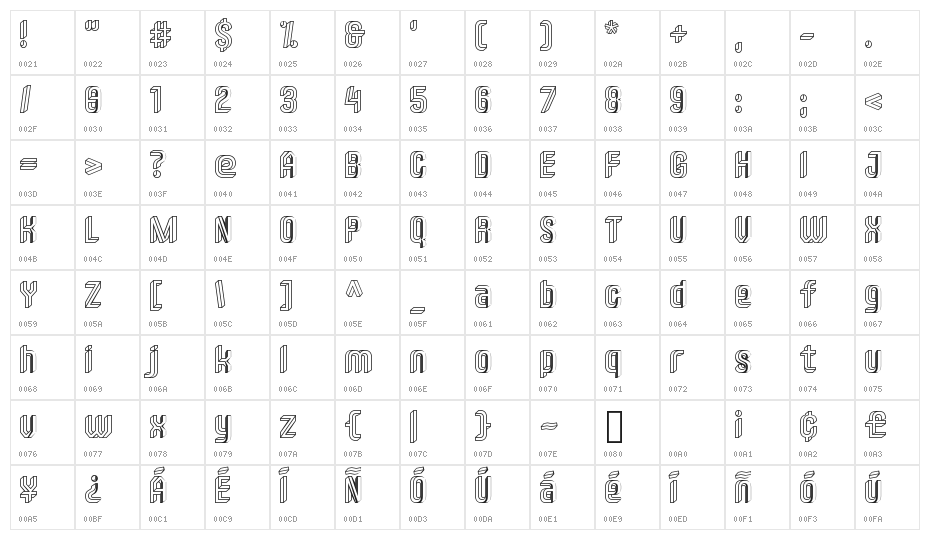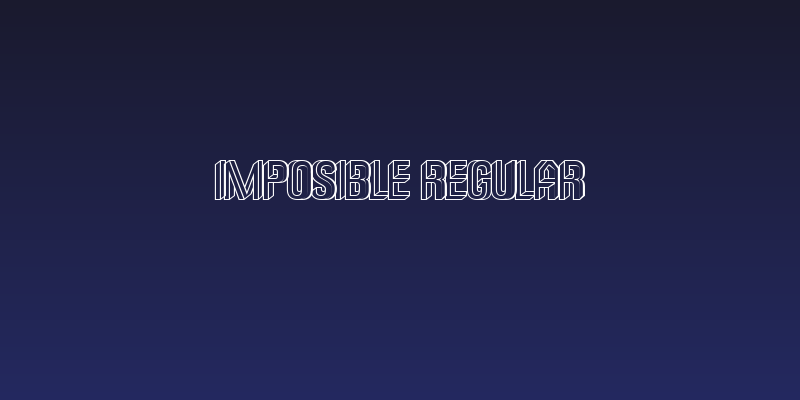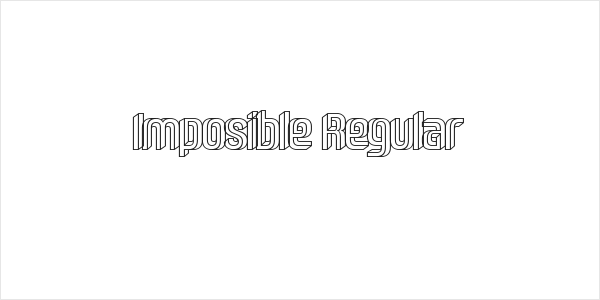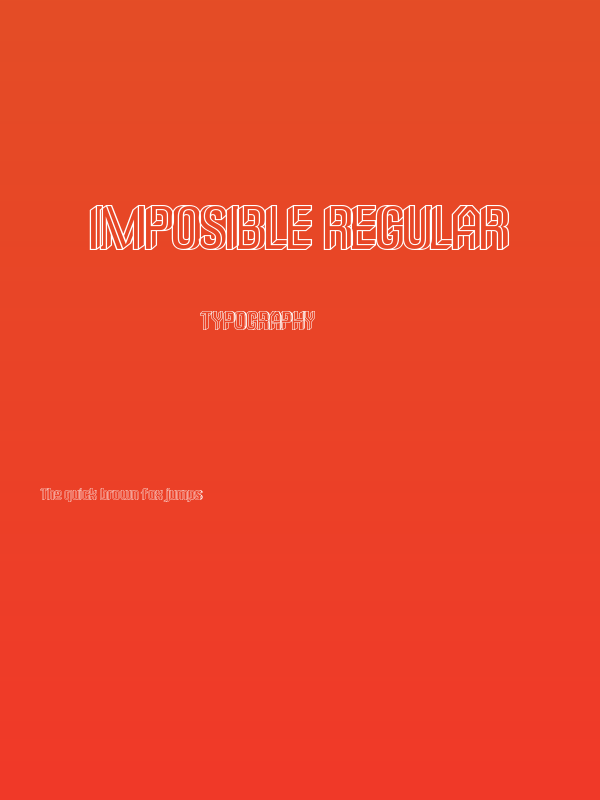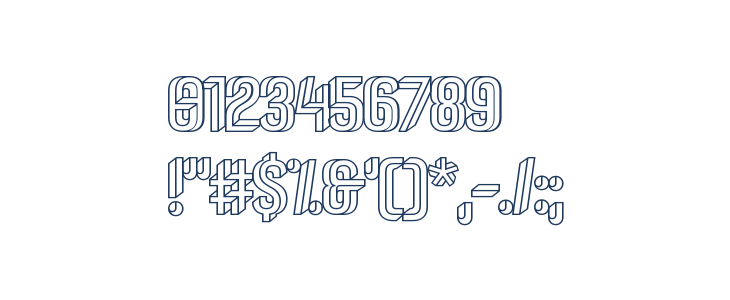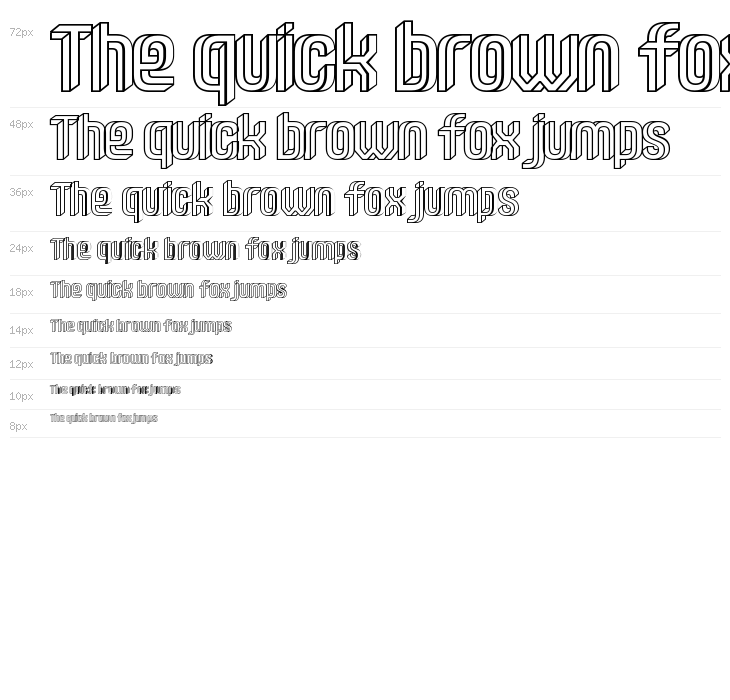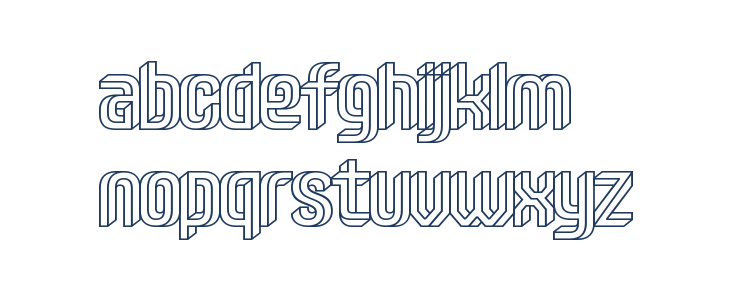
Imposible Regular Font
Imposible Regular Description
This font features a bold, geometric design with a three-dimensional effect created by overlapping outlines. The uppercase and lowercase letters maintain a consistent style, with sharp angles and clean lines that give a modern, futuristic feel. The numbers and special characters follow the same design principles, ensuring uniformity across all glyphs. The font's unique structure makes it stand out, while its readability remains intact despite the intricate design. This font is ideal for projects that require a striking visual impact.
| Proposed Projects | Ideal for posters, logos, branding, and any design requiring a modern, eye-catching typeface. |